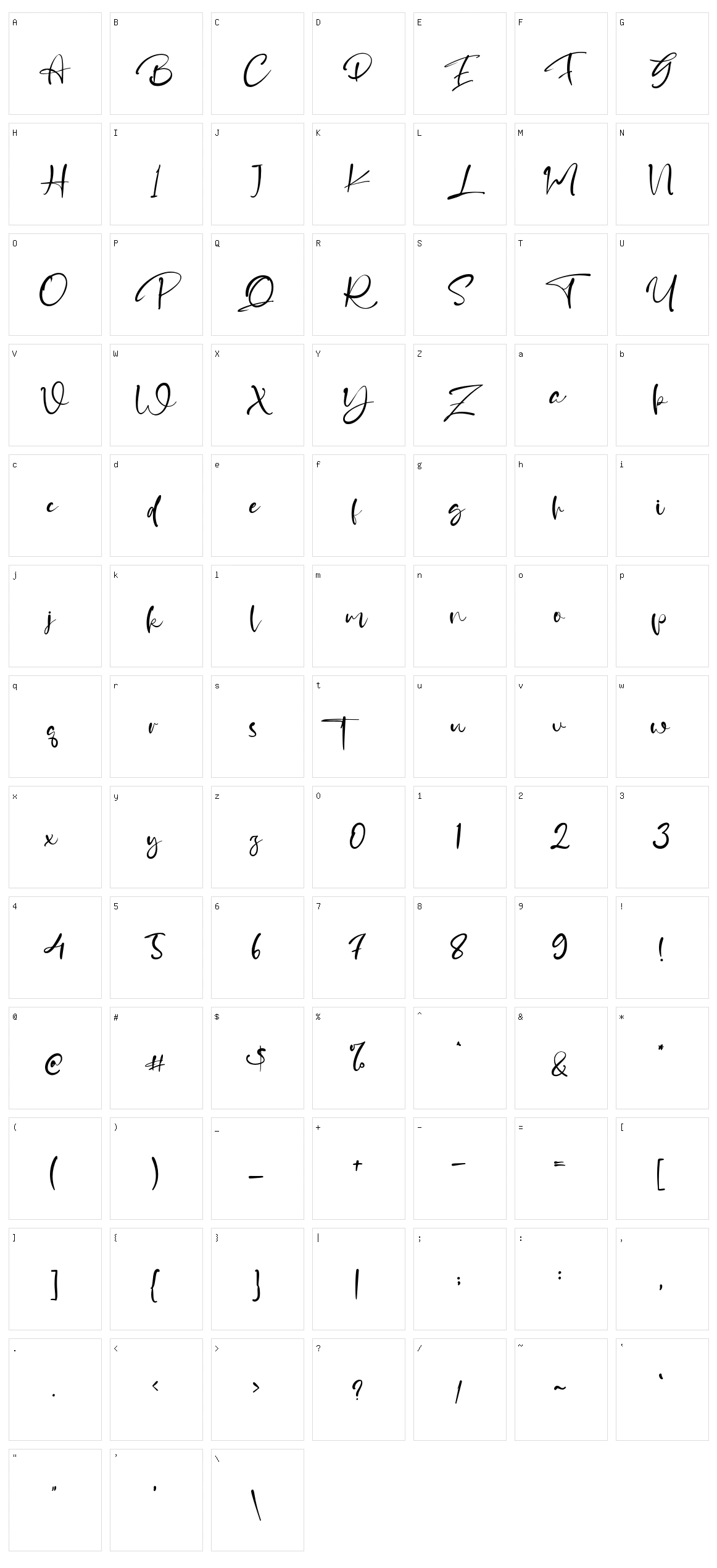
The free font Delliga is carefully designed by Kong Font, showcasing a thoughtful balance of creativity and usability and falls under the Script font style. When you download the ZIP file, it contains only 98.31 KB of font files, making it lightweight and quick to download. Please review the license details below to understand permitted usage and distribution rights. If license information is not available, we recommend using this font for personal projects only or contacting the author directly for commercial usage permissions.